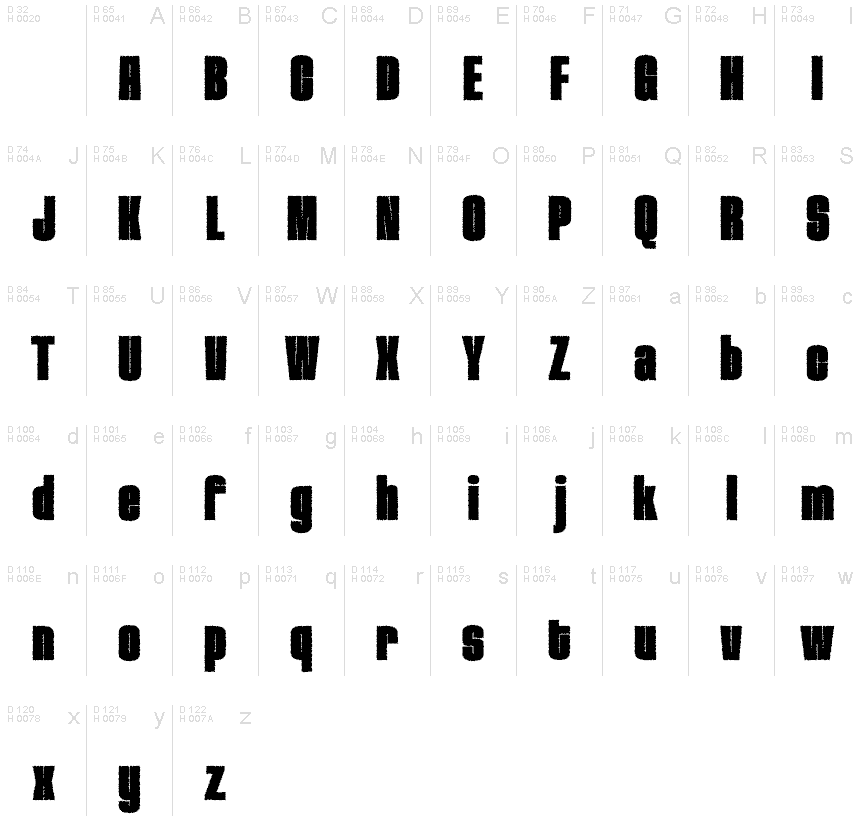
Pavelise Rough Demo Regular
Pavelise Rough font by Craft Supply Co is a display typeface with an eroded and rugged appeal. It is bold and condensed, and possesses a grungy texture that’s increasingly sought after with evolving digital typography trends. The font has a distressed aesthetic that gives it a vintage vibe, along with a strong presence.
Being free for use, Pavelise Rough can be put to use across website designs, editorial projects of all types, magazine layouts (all kinds), books, posters, invitations and cards of all kinds. It also works for product packaging design such as food items labels.